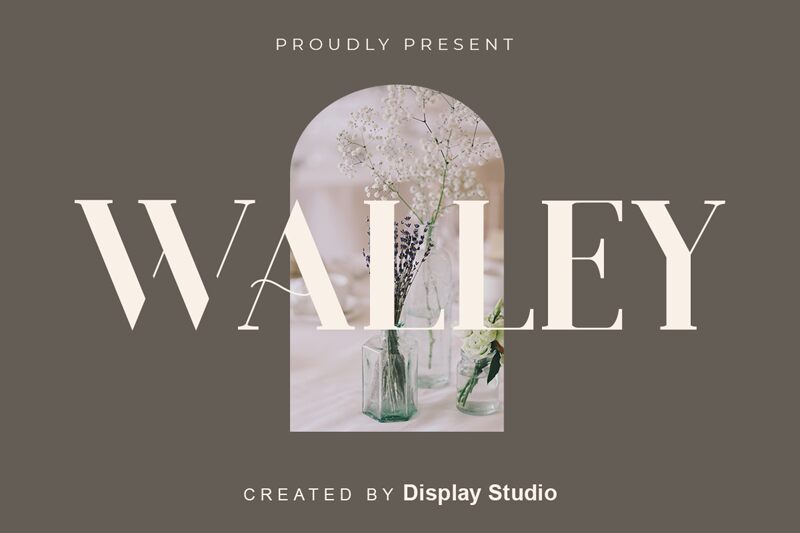
Designed by Display Studio, Walley is a beautiful serif font with an elegant and refined aesthetic. This cool complimentary font is captivating due to the stark contrast between thick heavy lines and thin curves, giving it an everlasting feel for a variety of design work.
With its classic yet modern feel that enhances the visual appeal of any written content, Walley typeface makes it easy to create signs, editorial designs and elegant invitations. It's like an artist's brushstroke, adding subtle serifs that make headlines and logos look graceful and therefore memorable.